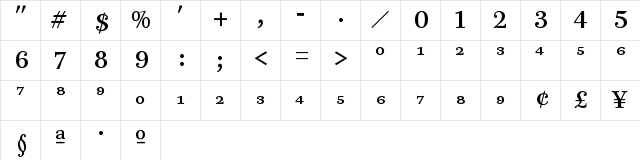
PB9TTP-RomanFrac Regular
Design Context for PB9TTP-RomanFrac Typeface
PB9TTP-RomanFrac offers clean, dependable letterforms without strong stylistic allegiance, making it a practical choice for designers who need flexibility.